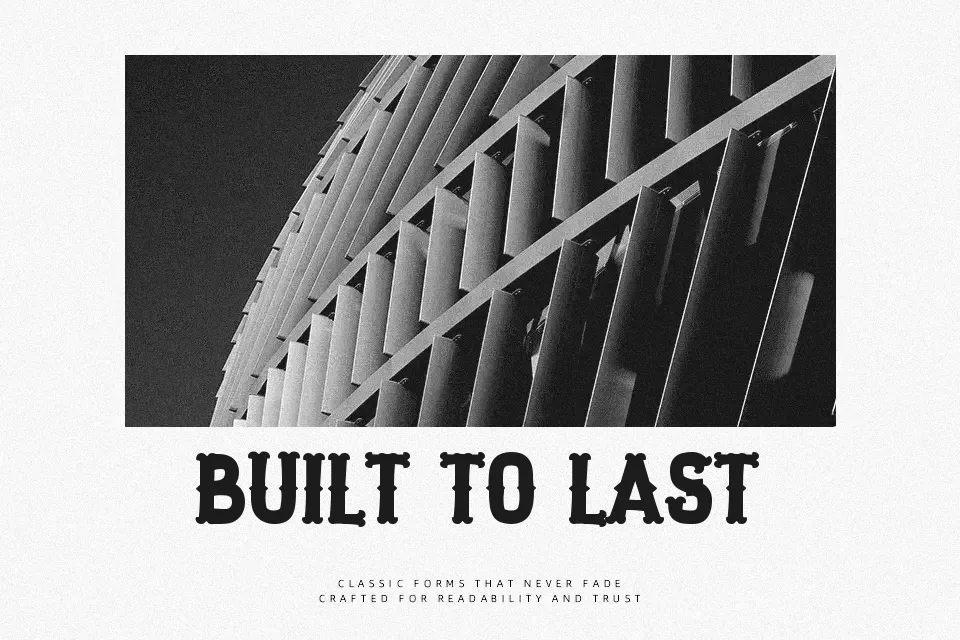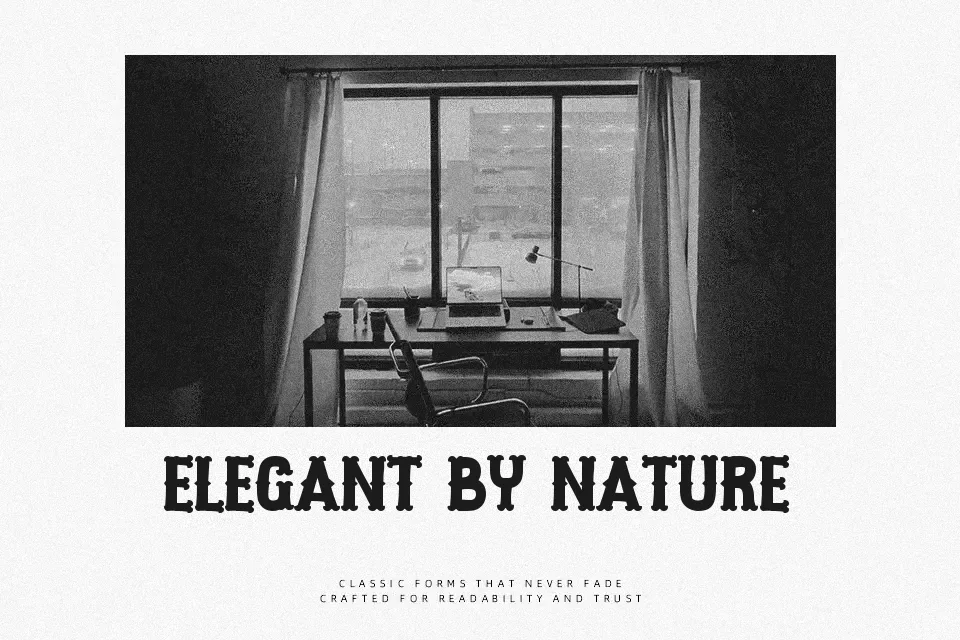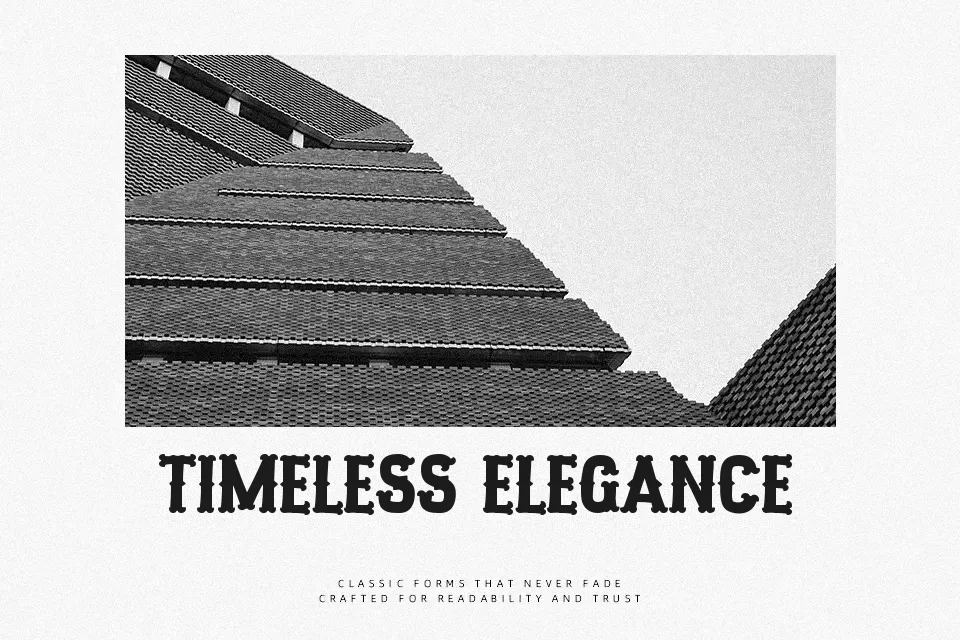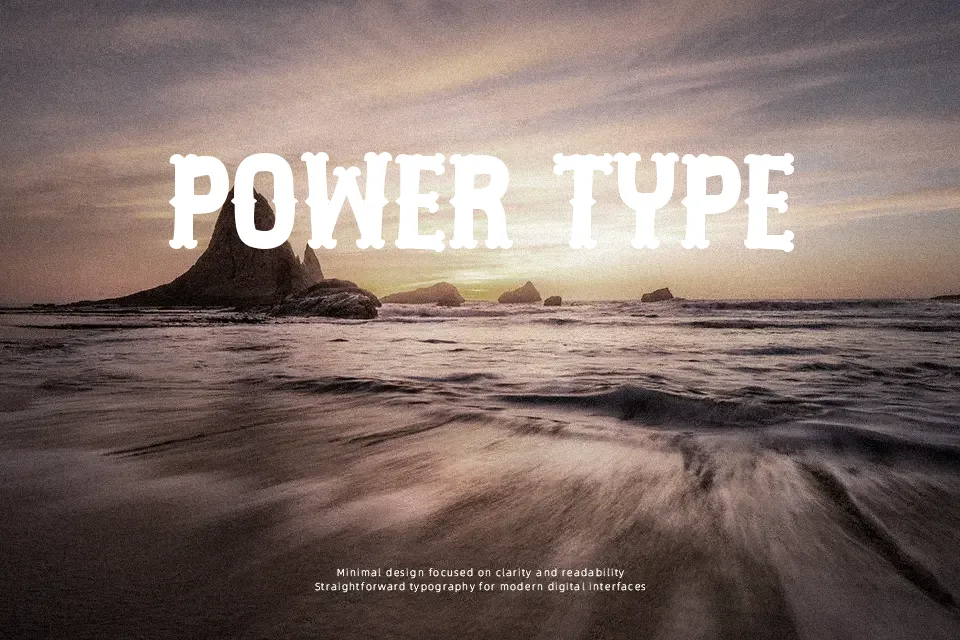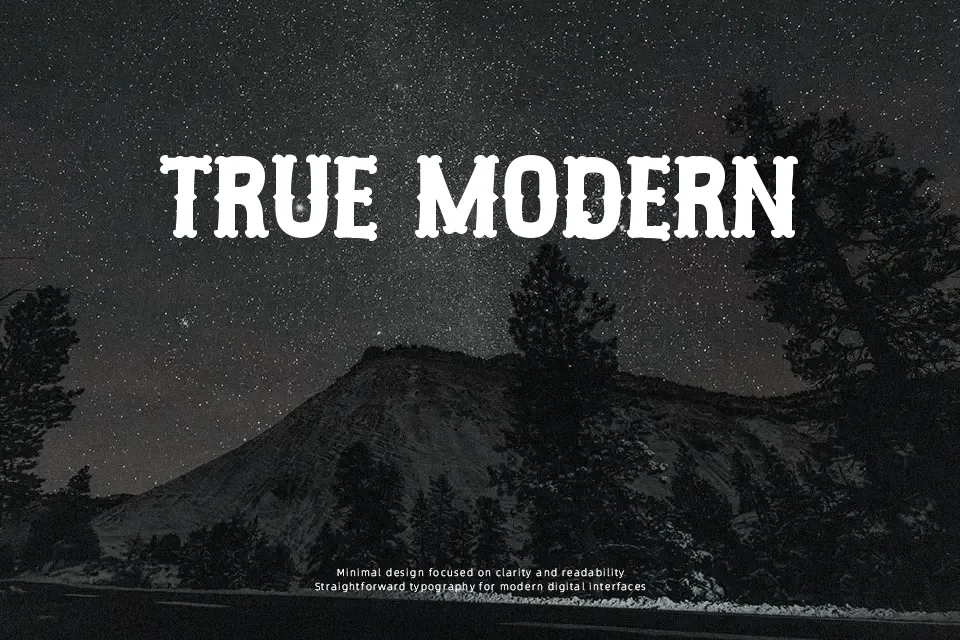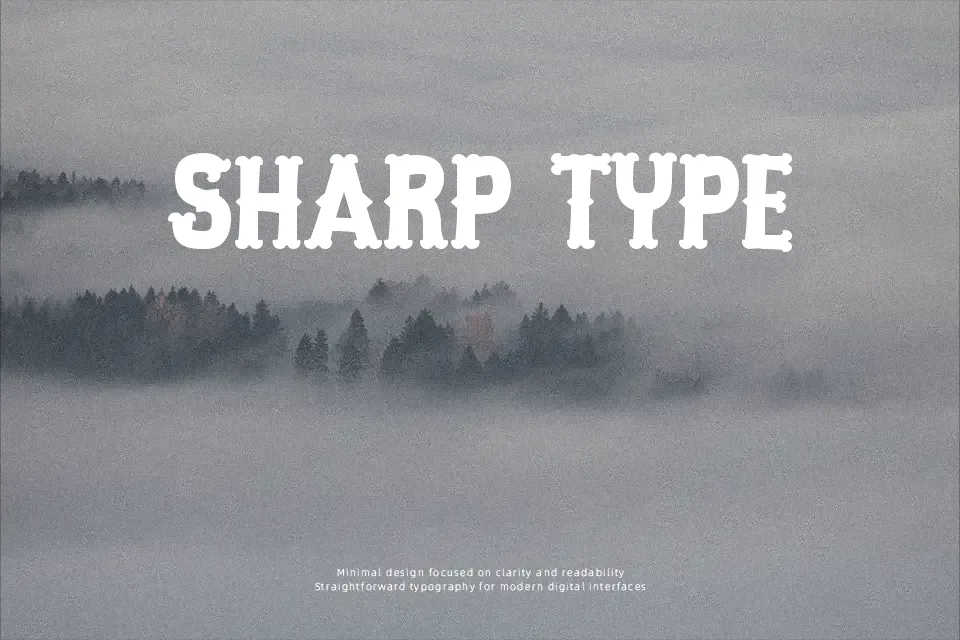
Barbarosa Font
Barbarosa carries a vintage decorative character rooted in architectural ornamentation — thick, structured strokes meet serif detailing in a way that reads bold without feeling clunky at display sizes. The letterforms lean on contrast and classical proportion, making it work well on badges, label packaging, and headline compositions where personality is the priority. That same density becomes a problem in tight column widths or multi-line body text, where it starts competing with itself. Think of it less as a versatile workhorse and more as a statement piece: it earns its place on a wine label or artisan product cover, but struggles when the layout demands subtlety or extended reading.
Best For:- Vintage logotype and badge design
– Poster and editorial headline treatments
– Certificate and label artwork
– Artisan product packaging headers
Not Ideal For:- Body text or paragraph-length copy
– Digital UI elements and small-screen text
– Corporate or minimalist brand systems
– Any context requiring tight tracking at small sizes